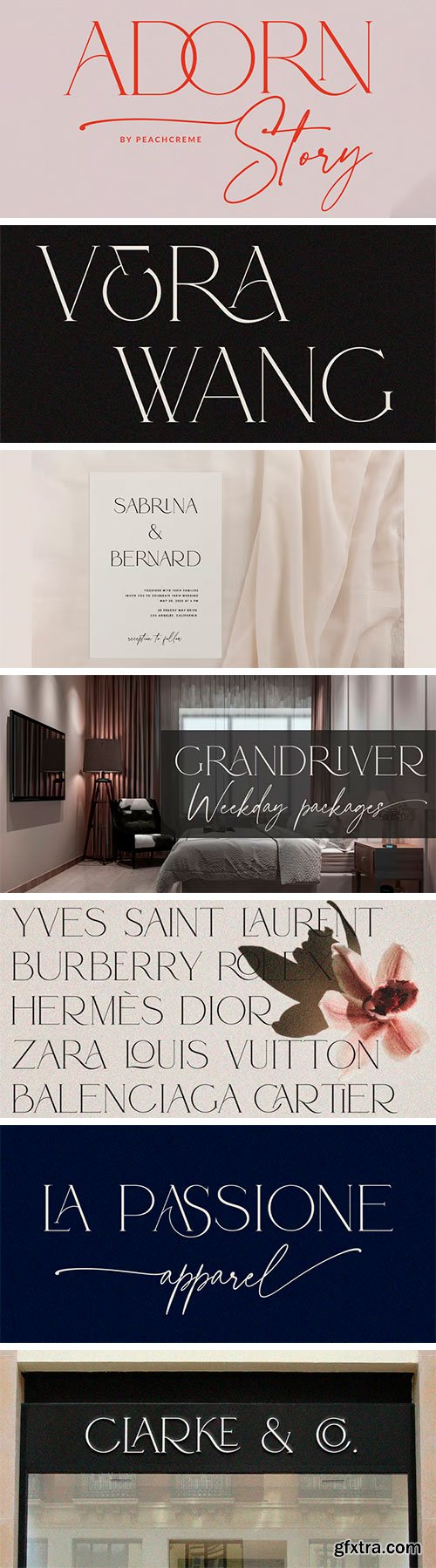
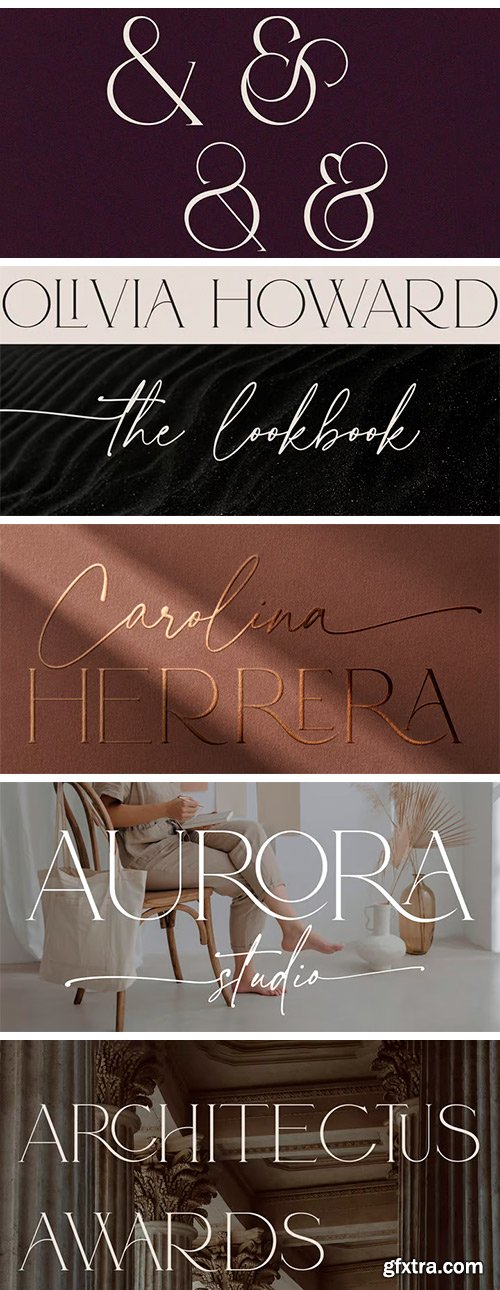
Meet our new ah-mazing font duo-Adorn Story. You would fell in love, if you are looking for beautiful, refined serif paired with the voguish script. Serif font is rich with 60 ligatures, script font has beginning uppercase, beginning and ending lowercase swashes.